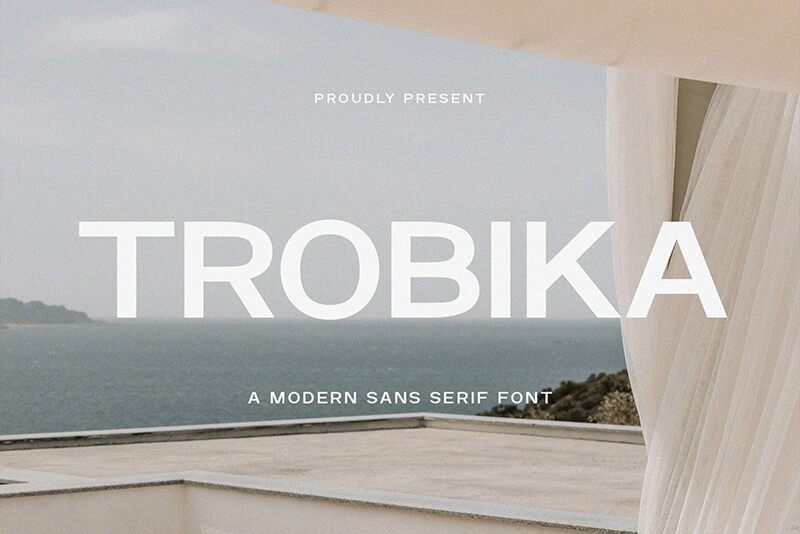
Trobika Regular
Trobika, crafted by BrandSemut, stands out as a sans serif marvel that boasts bold simplicity and contemporary elegance. Its characters exude confidence with their strong presence, making it an ideal choice for headlines that demand attention. The font's generous proportions and clean lines contribute to its readability, ensuring that messages are not only seen but effortlessly understood.
With its modern flair and striking clarity, Trobika is perfectly suited for branding projects, sophisticated advertising campaigns, and high-impact editorial use. It brings an air of professionalism to business collateral and can elevate the visual identity of cutting-edge technology firms or fashion labels seeking a chic typographic statement.